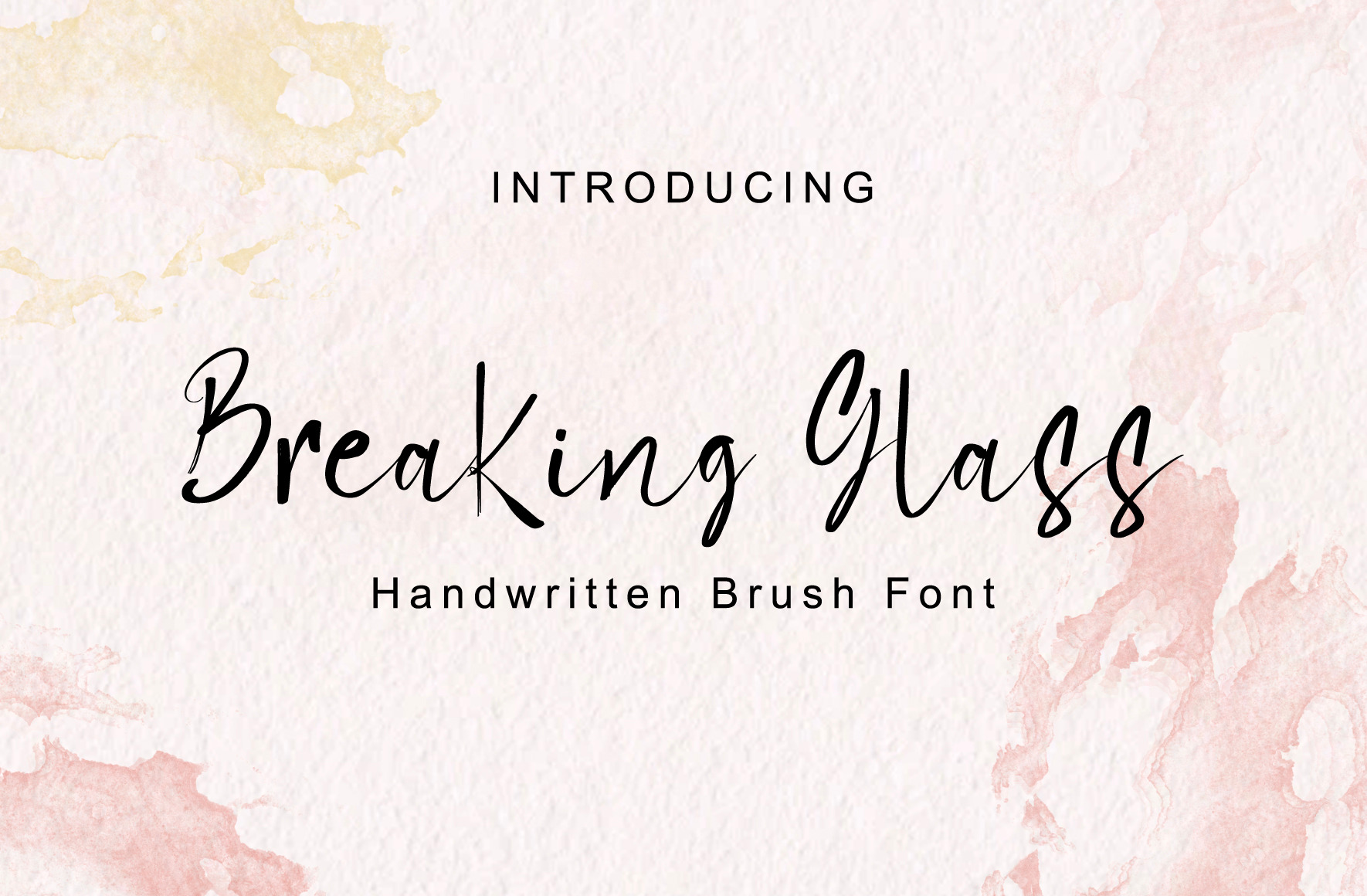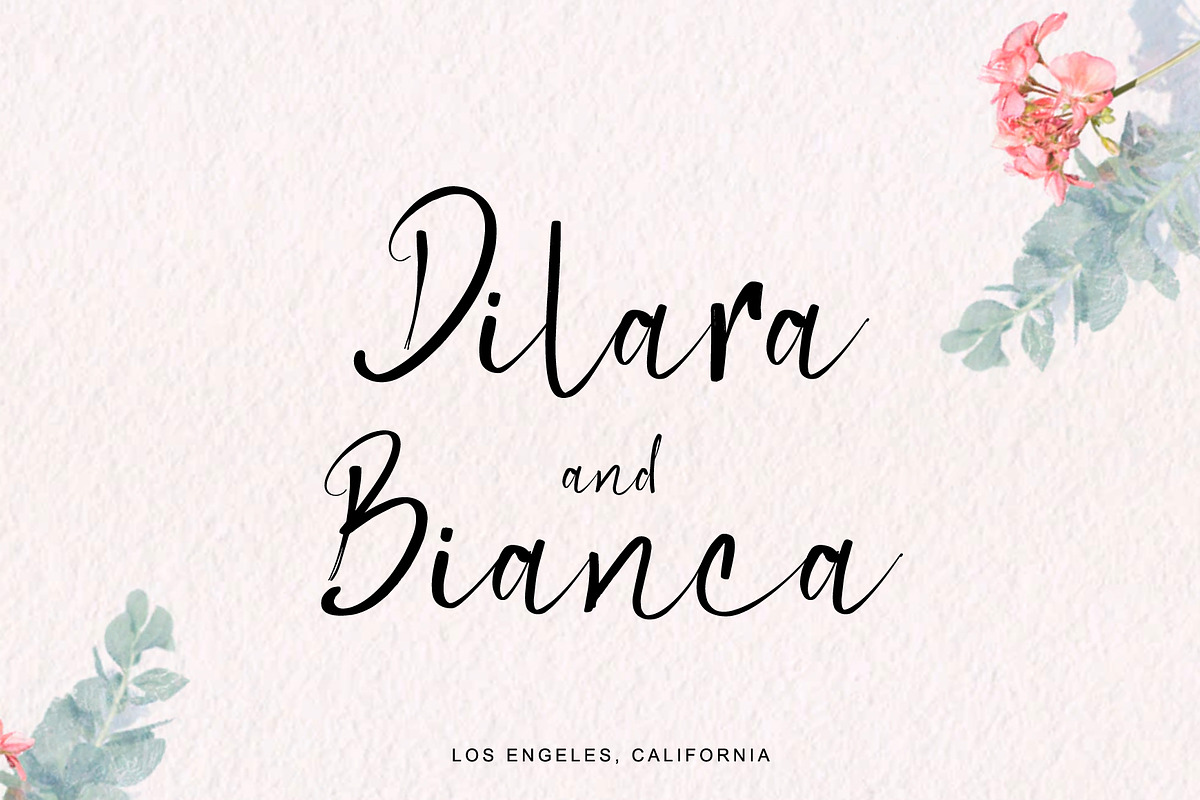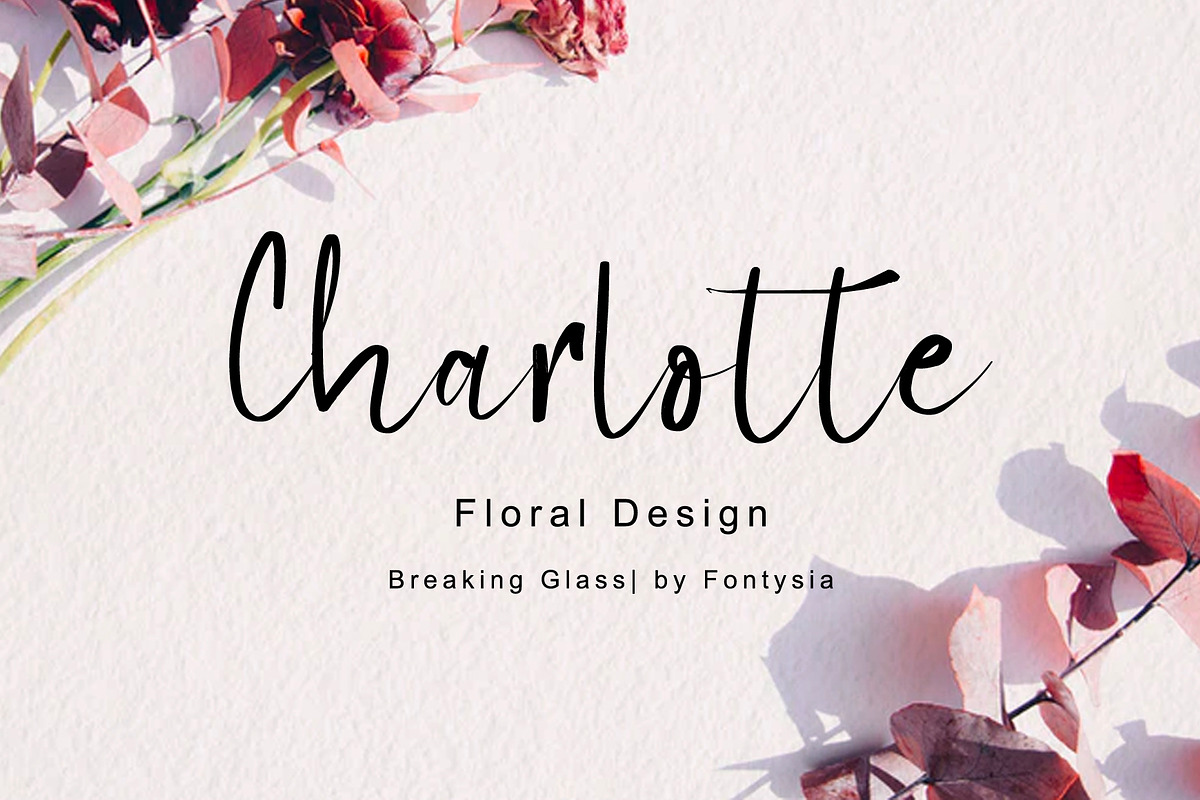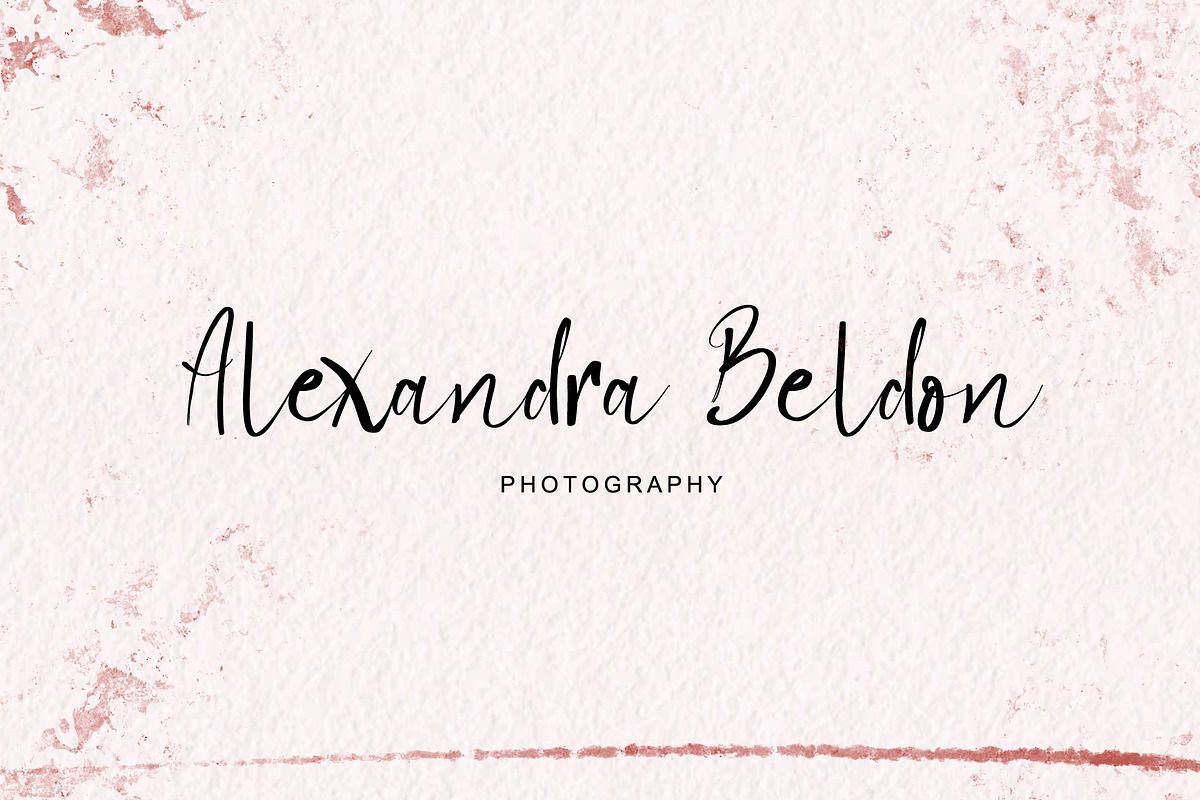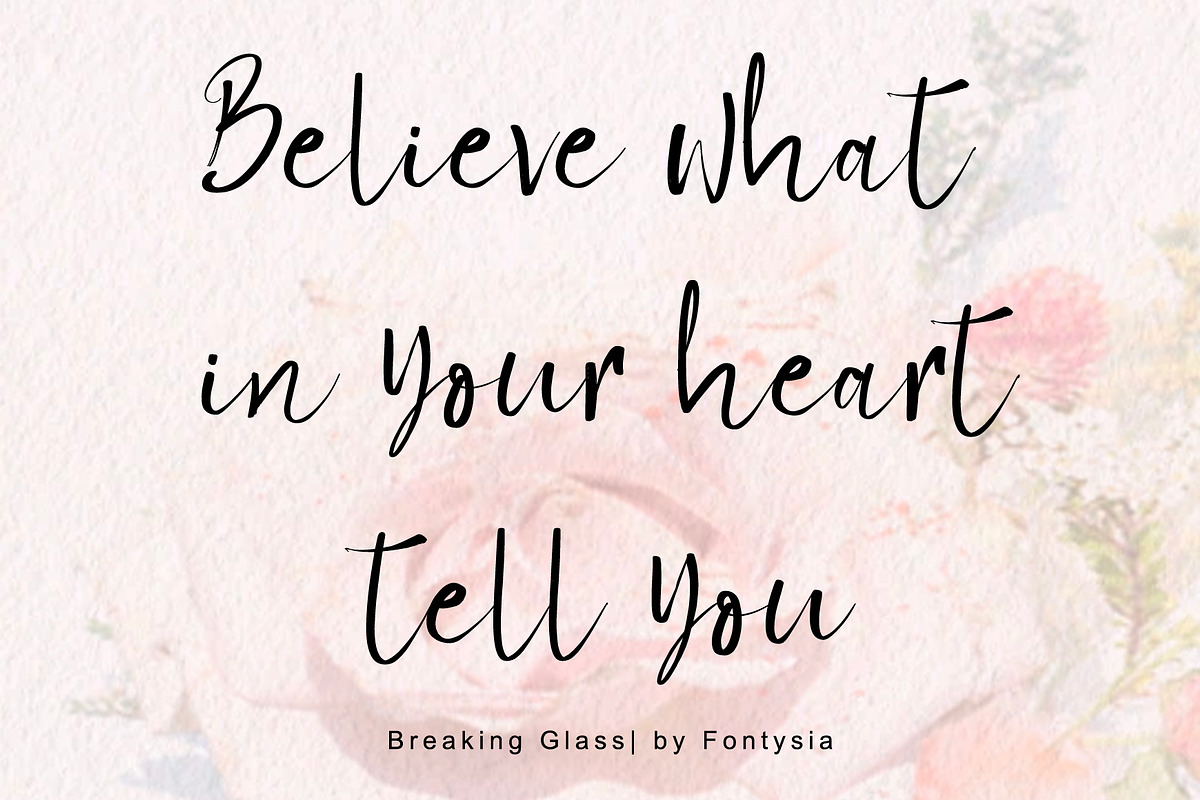
Breaking Glass | Handwritten Font
Breaking Glass is a thin lettered and graceful script font. Fall for its ravishing style and use it to create gorgeous wedding invitations, beautiful stationary art, eye-catching social media posts, and much more!